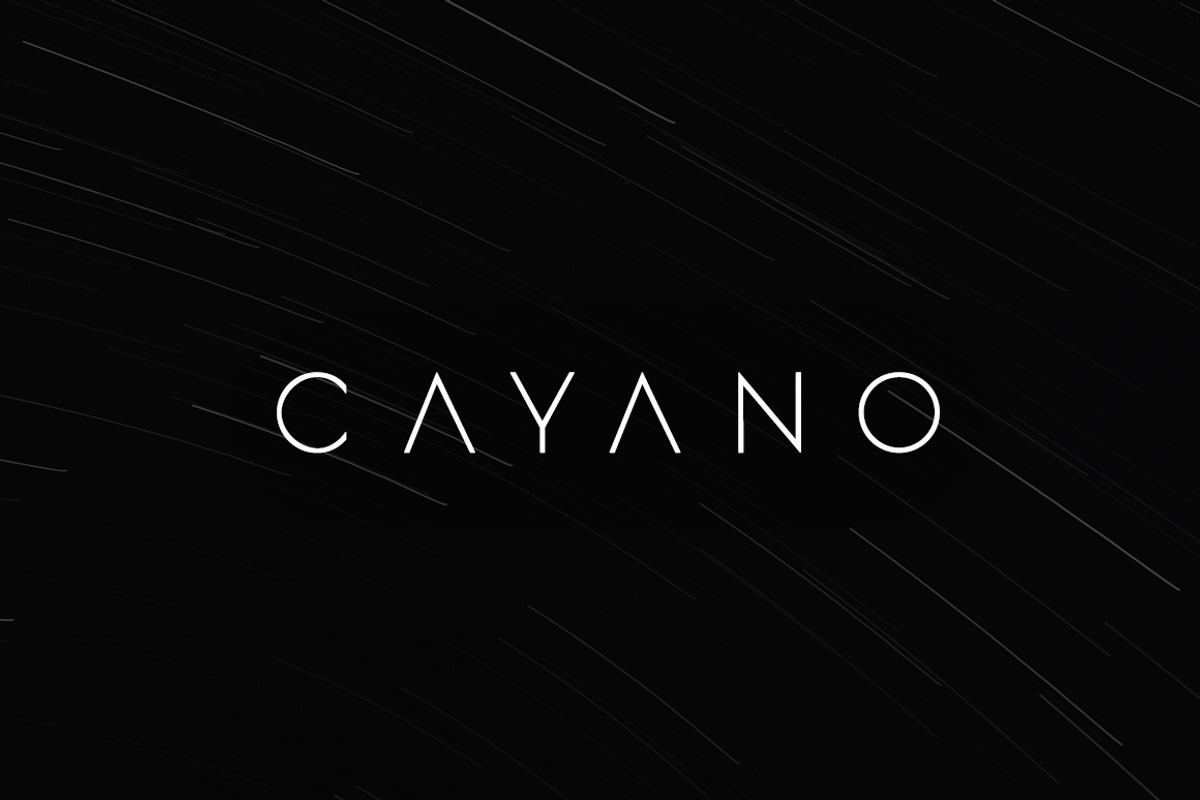
Cayano Typeface Free Download
Cayano Typeface Free Download is a bold and stylish display font designed to make a strong visual impact. With its sharp edges, clean lines, and modern character, this typeface is ideal for logos, posters, headlines, and statement branding that needs to stand out.
Whether you’re building a tech brand, launching a bold campaign, or designing eye-catching merch, Cayano Typeface Free Download offers the power and precision you need. Its commanding presence and sleek style make it a versatile choice for both print and digital designs. Download and test it today to see how it fits your creative vision before securing the full commercial license. Cayano is confidence in font form.